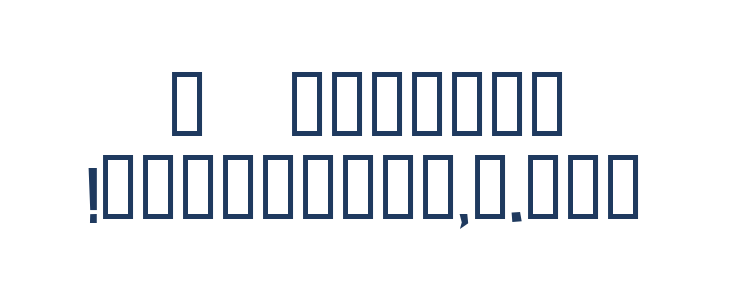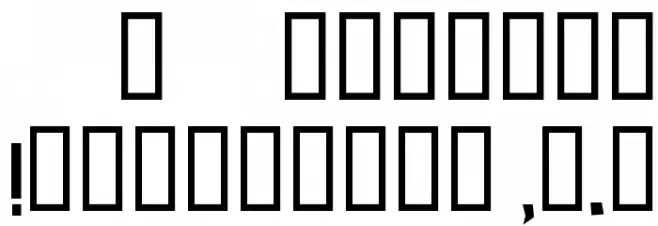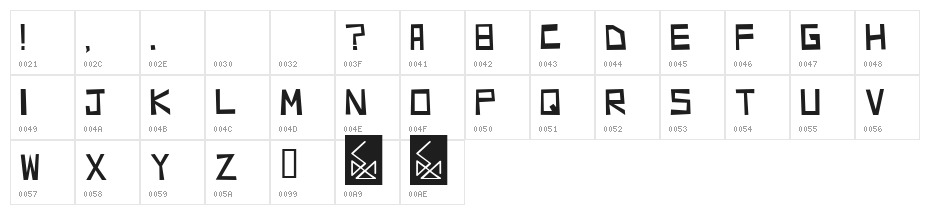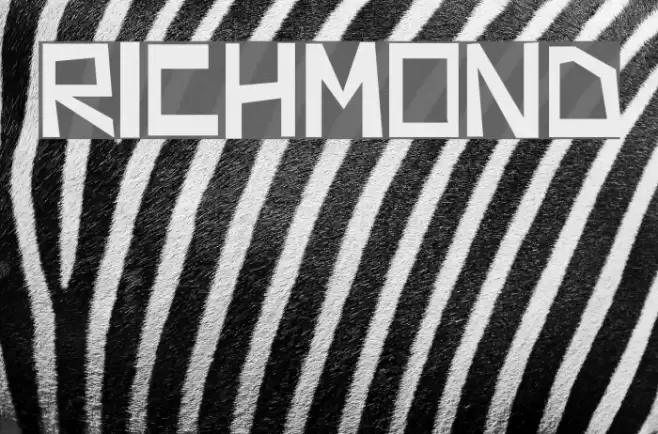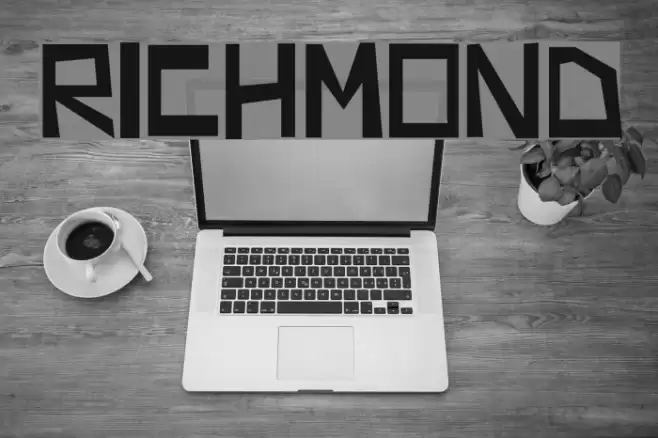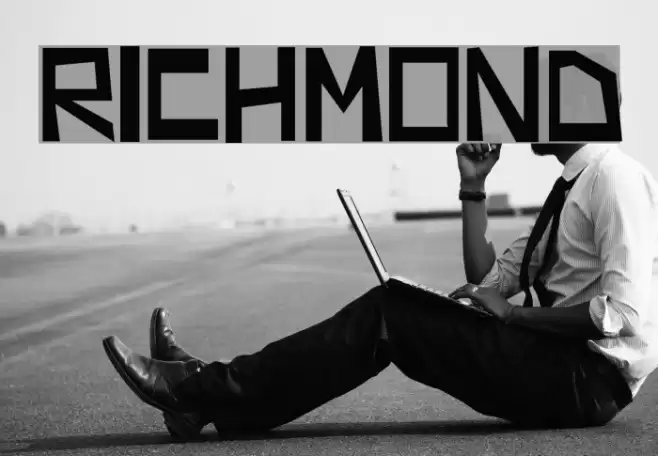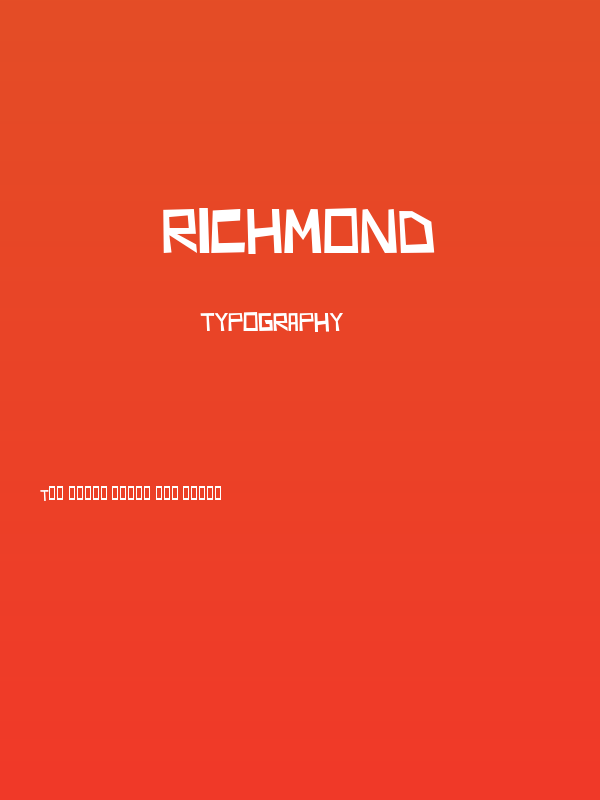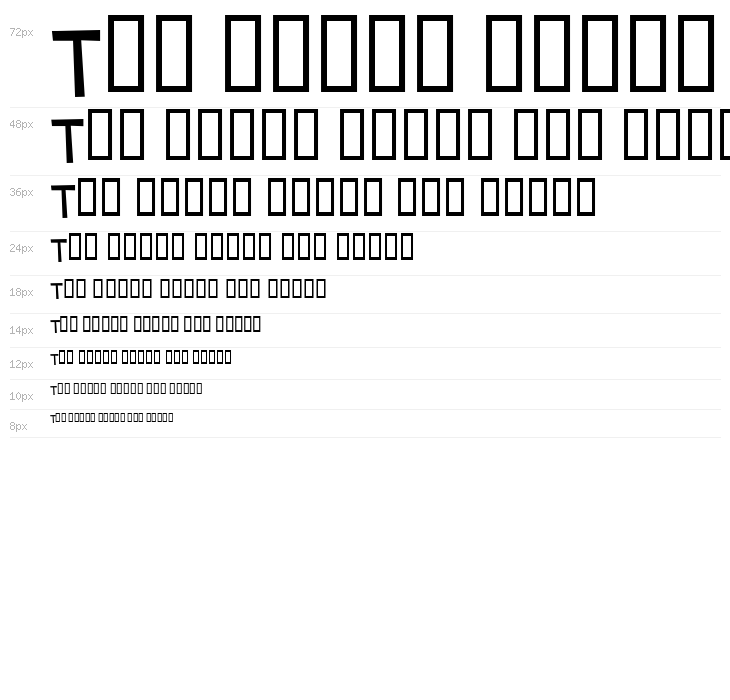
RICHMOND Font
RICHMOND Description
This font features a bold and geometric design, characterized by sharp angles and a blocky structure. The uppercase letters exhibit a strong presence with their thick lines and angular cuts, creating a modern and edgy appearance. The absence of lowercase letters and numerals suggests a focus on impactful headlines or titles. The special characters maintain the same bold and angular style, ensuring consistency across the font. Its unique design makes it stand out, suitable for projects that require a strong visual impact.
| Proposed Projects | Ideal for logos, headlines, posters, and branding materials that require a strong visual impact. |